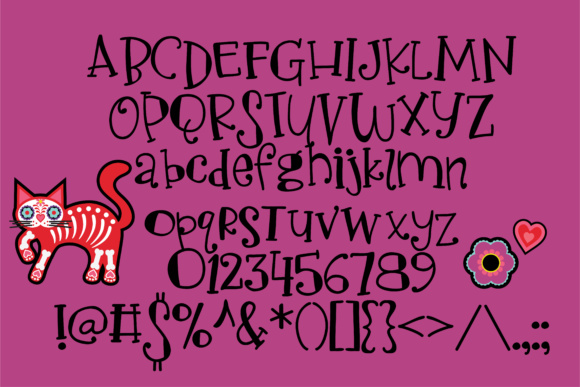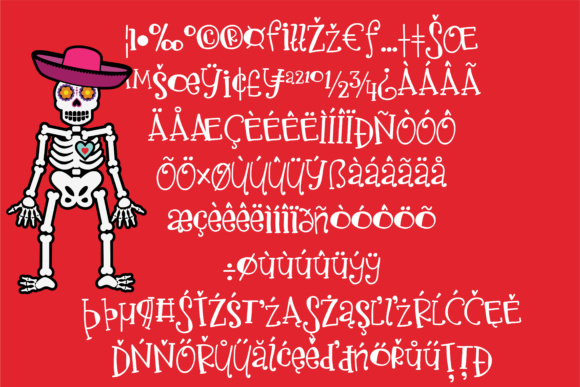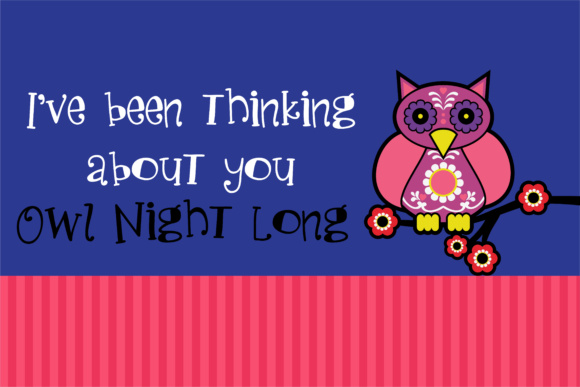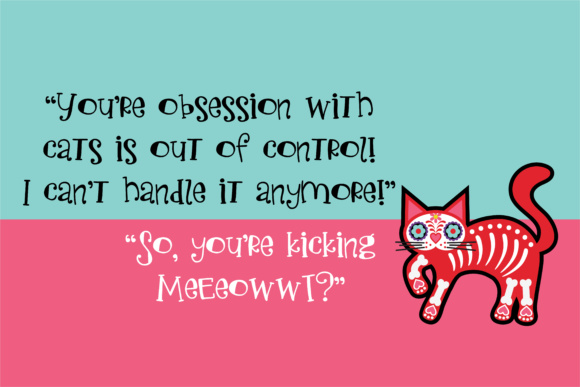
Sugarcane Font
About Sugarcane Font
Sugarcane is a whimsical, cutesy font that can add a ton of youthfulness and bookish appeal to your works! This handwritten font was crafted with a curly, serif sensibility and looks best in children’s themed projects.